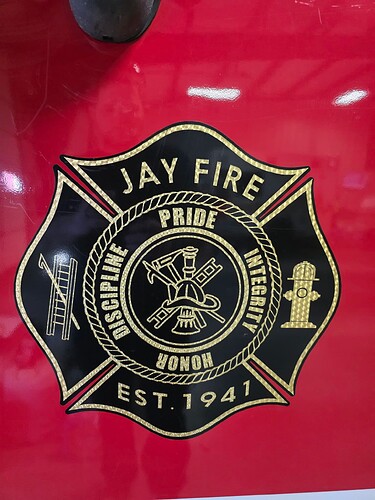
I need to rebuild this logo from scratch but I’m having a hard time finding the exact font they used. Please help me find it before I just slap some other font all willy nilly in here. I’m gonna lose my marbles lol, thank you in advance.
EDIT TO ADD: I know the inside inside words are impact. I’m more specifically looking for “JAY FIRE” and the est year
Here are two. The font is in the Futura genre, but the cap R in Futura does not have a small space between the left stem and the leg. Fenomen does. Also, the 4 has a flat nose and the flag on the figure 1 has a square terminal, not a slanted one.